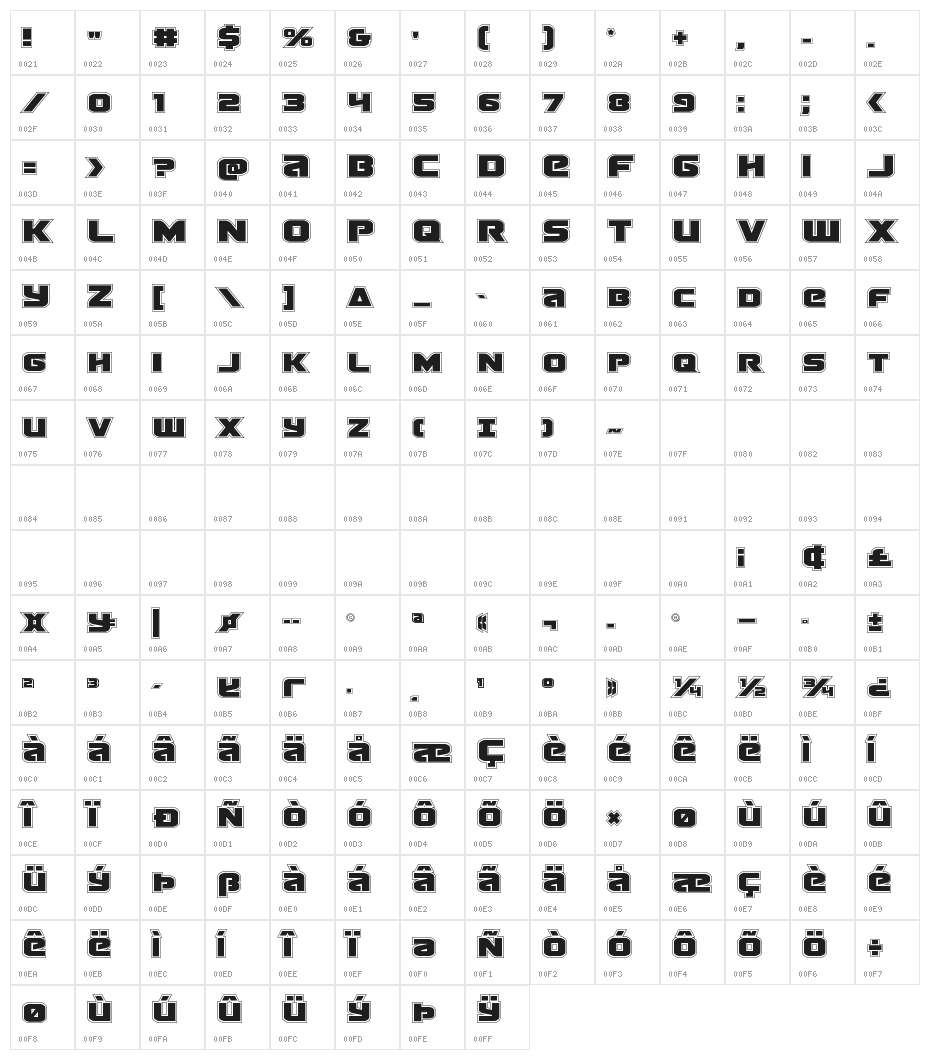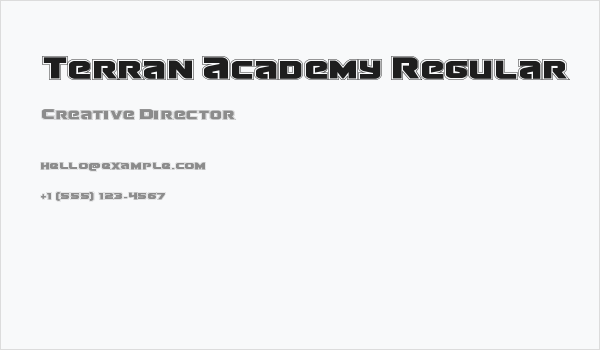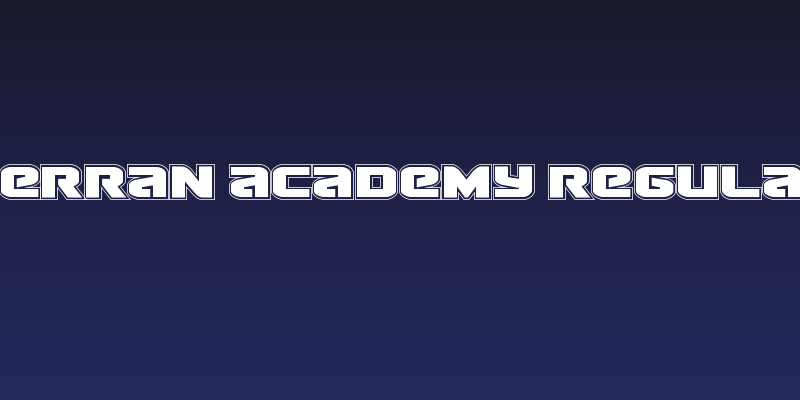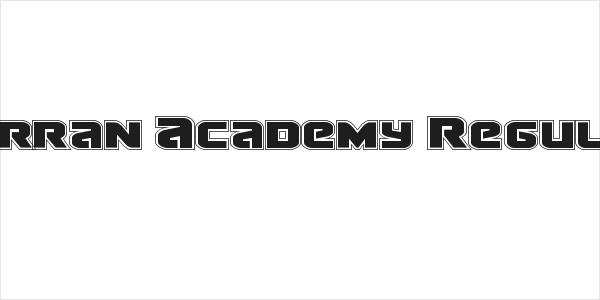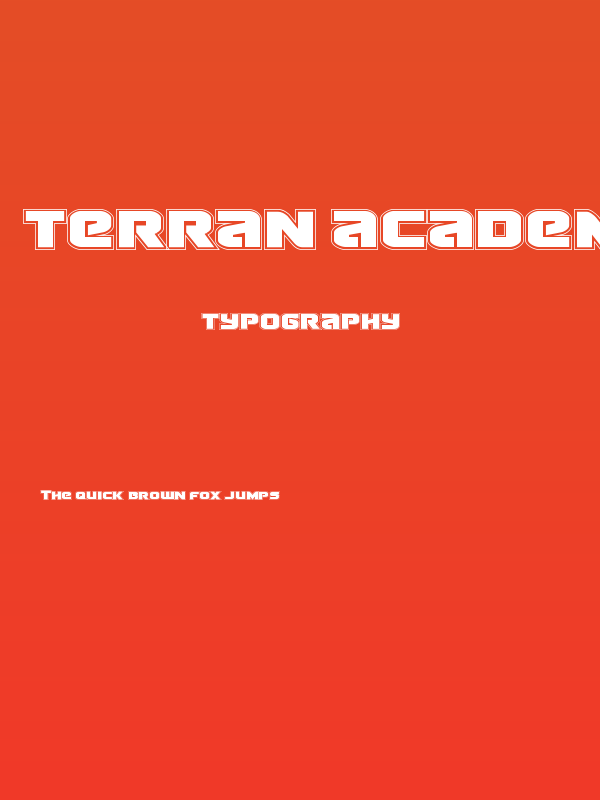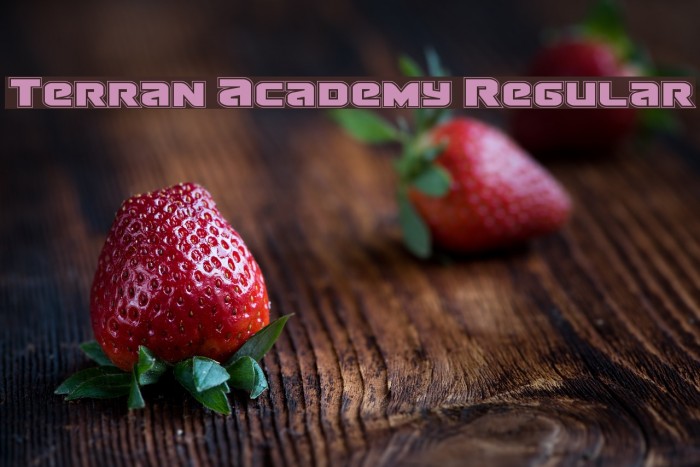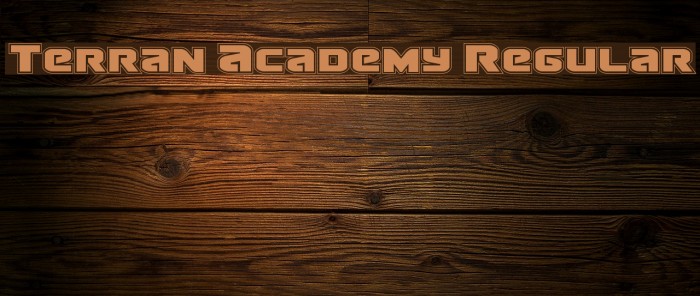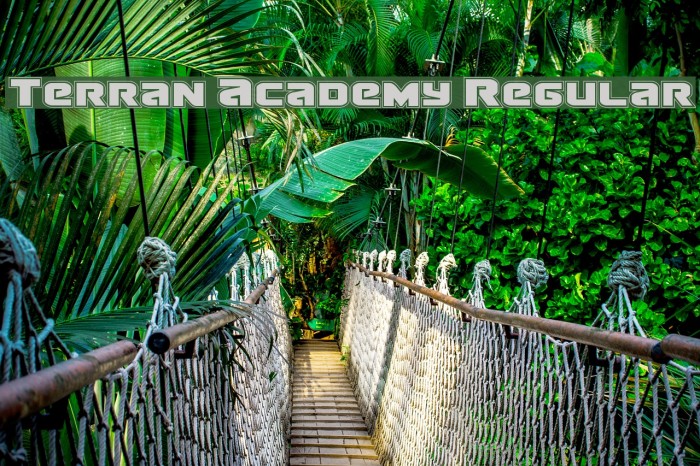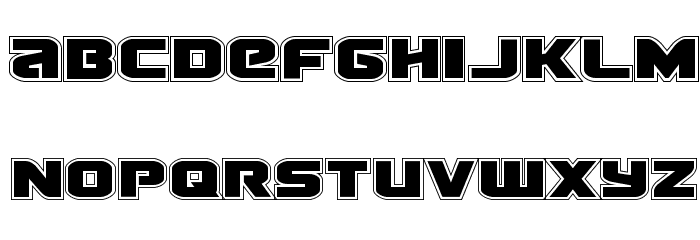
Terran Academy Regular Font
Terran Academy Regular Description
This font features a bold, geometric design with a strong, futuristic aesthetic. The characters are outlined with a thick border, creating a striking contrast between the inner and outer sections. The uppercase and lowercase letters maintain a consistent style, with sharp angles and a blocky appearance. Numbers and special characters follow the same design principles, ensuring uniformity across the font. The overall look is modern and dynamic, making it ideal for projects that require a bold statement.
| Proposed Projects | Ideal for sci-fi themed designs, video game titles, tech branding, and posters. |